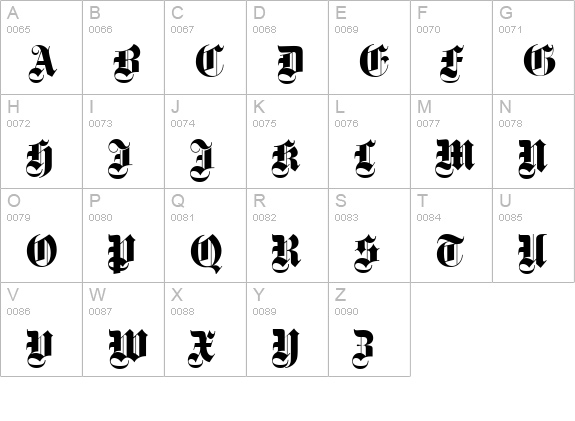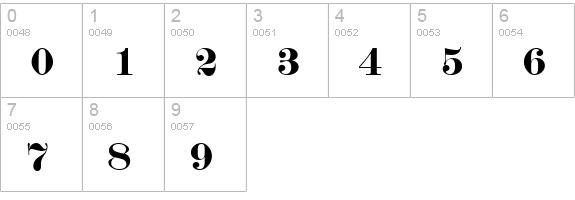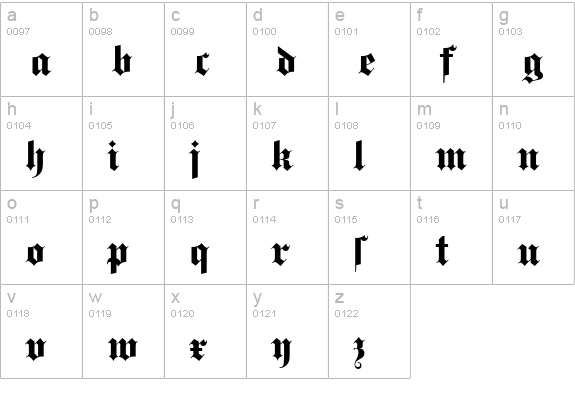
Gotisch-Regular is the standard, neutral variant in the Gotisch typeface family \xE2\x80\x94 well suited to general body text, paragraphs, and standard typographic work.
Gotisch-Regular is a versatile and elegant font that exudes a classic and timeless aesthetic. Its unique Gothic-inspired design sets it apart from other fonts, making it a perfect choice for projects that require a touch of sophistication and vintage charm. This font features intricate detailing and sharp lines that add a sense of drama and flair to any text. Whether used for titles, headlines, or body text, Gotisch-Regular delivers a bold and impactful statement that is sure to capture attention. Best of all, Gotisch-Regular is available for free download at FontsMarket.com. This means you can easily access and use this stunning font in your design projects without any cost. Don't miss out on the opportunity to enhance your creations with the beauty and elegance of Gotisch-Regular font today!